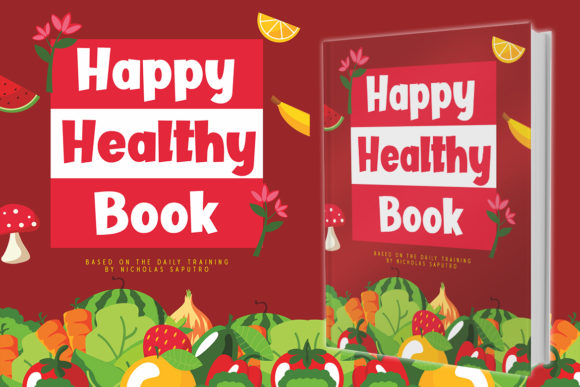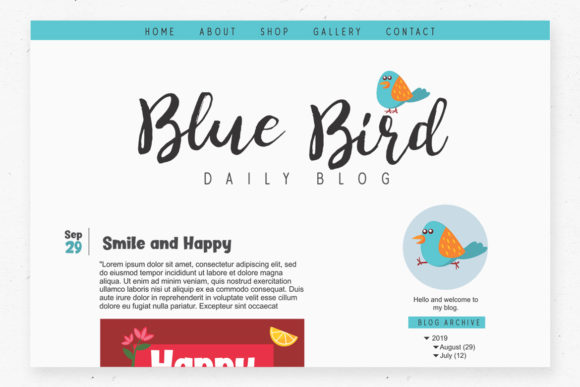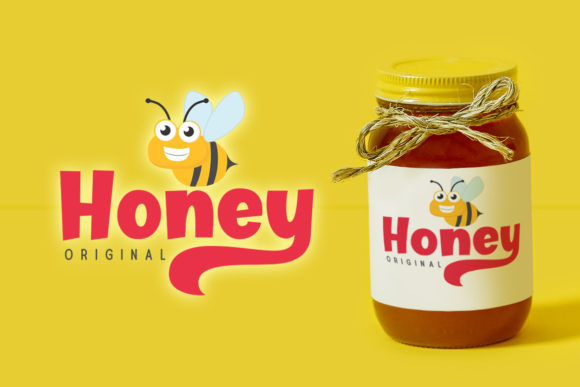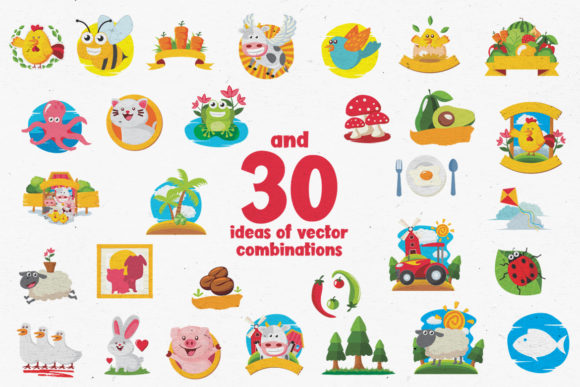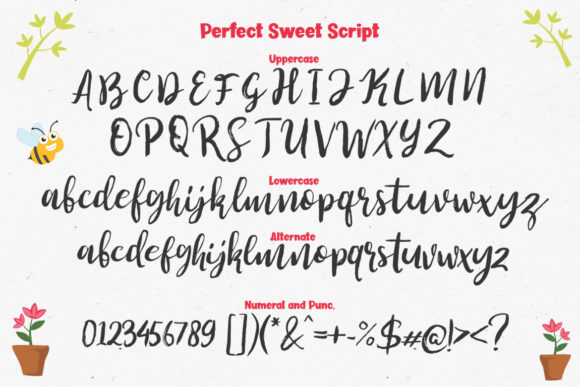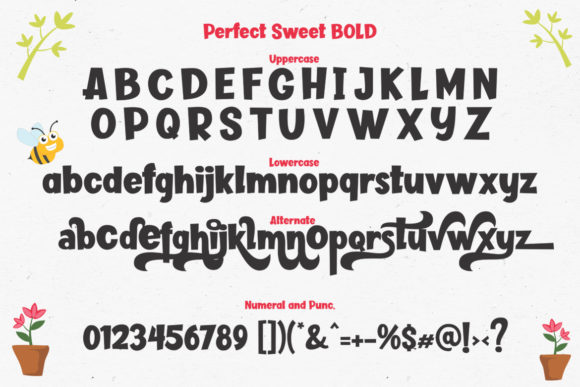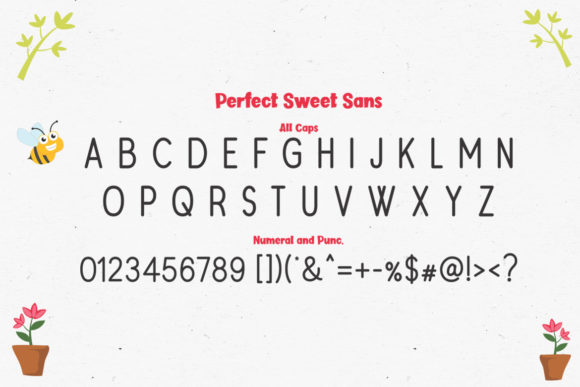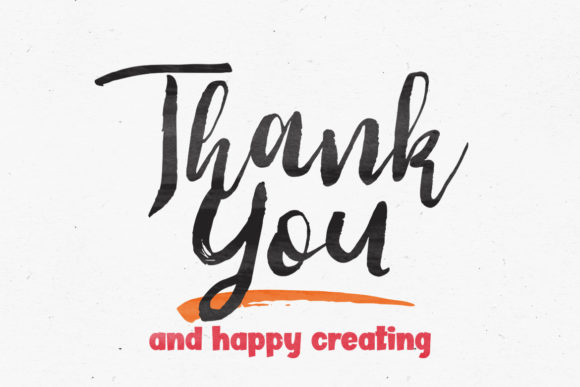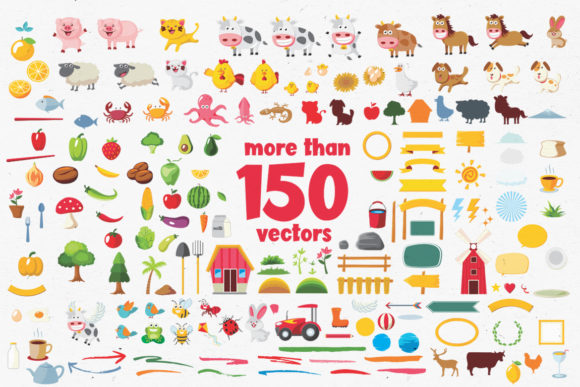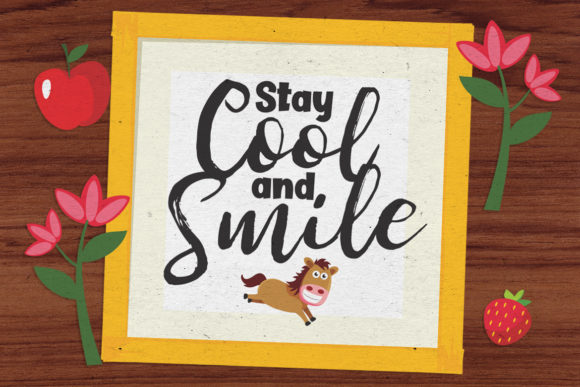
Perfect Sweet Trio Font
About Perfect Sweet Trio Font
Fall in love with the delicious and charming Perfect Sweet font trio! It comes with more than 150 bonus colourful Illustrations that will easily turn any creative project into a true stand out.